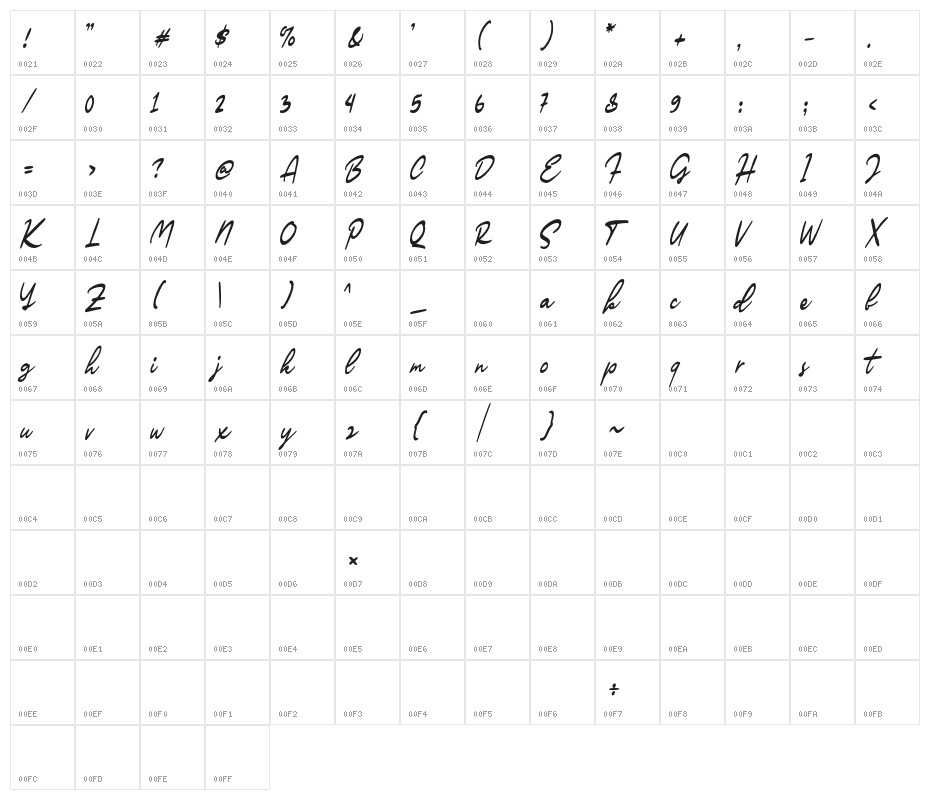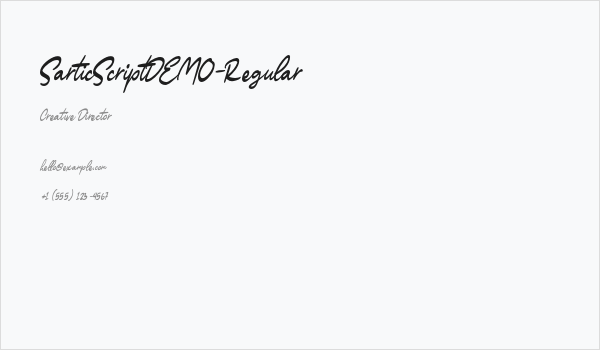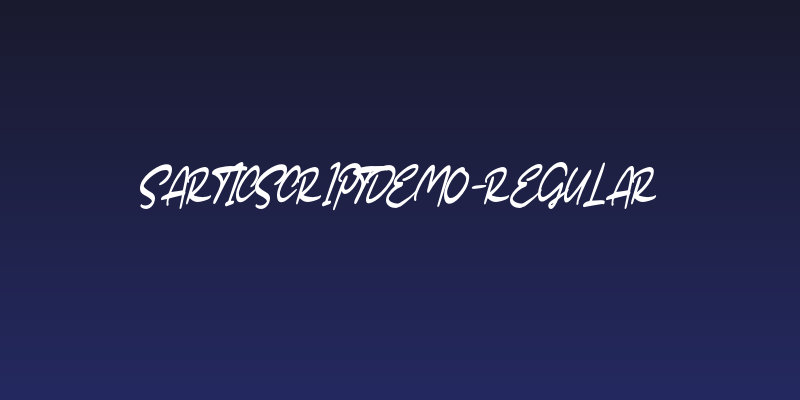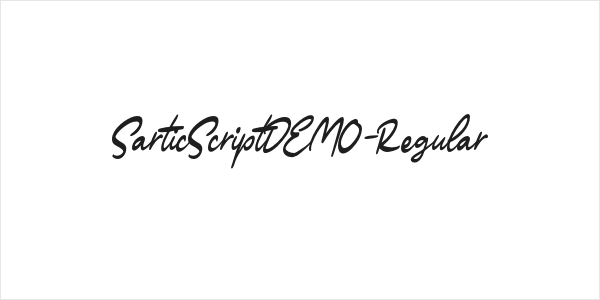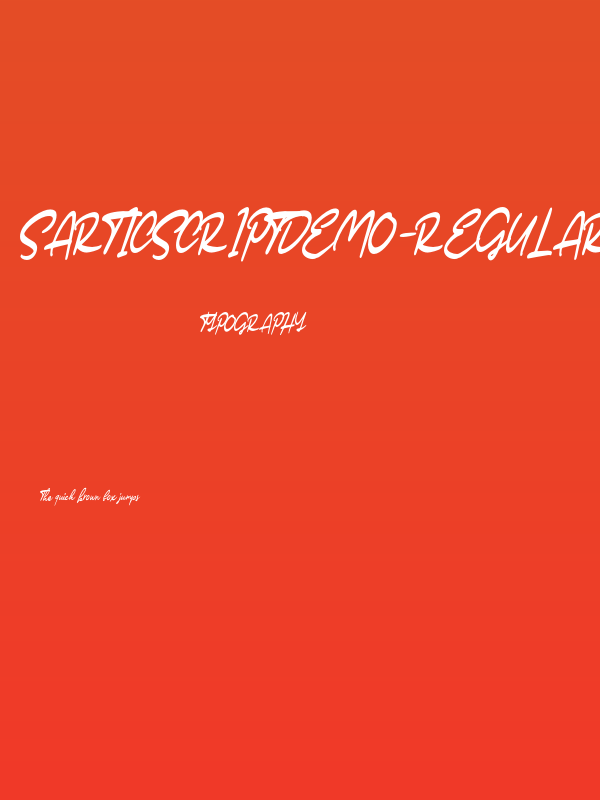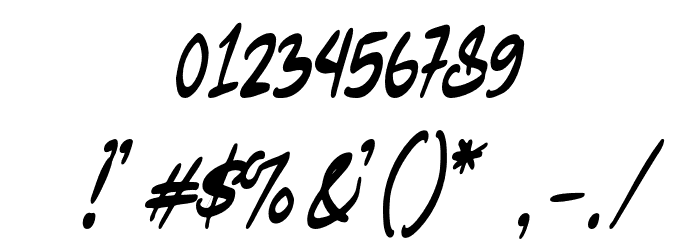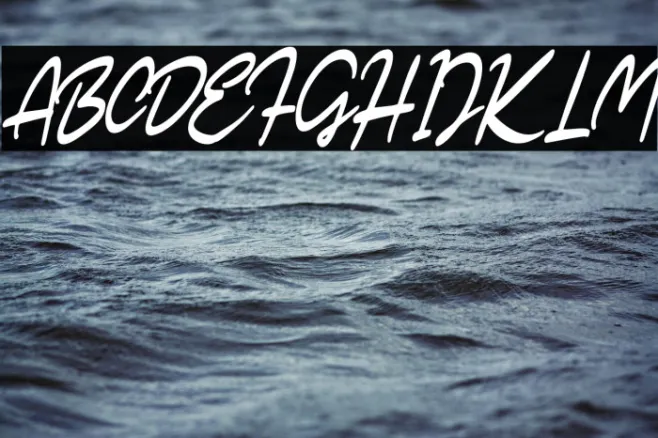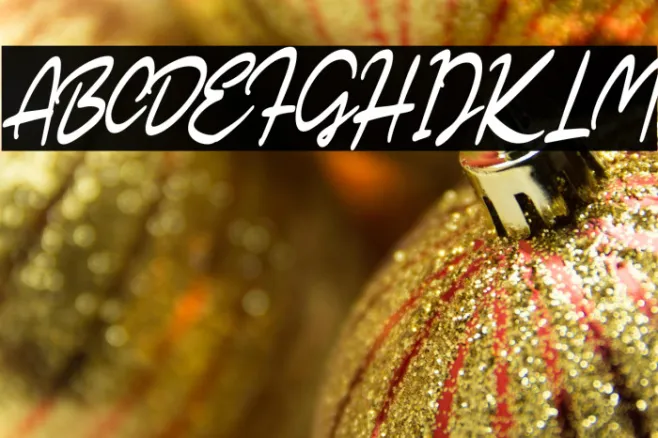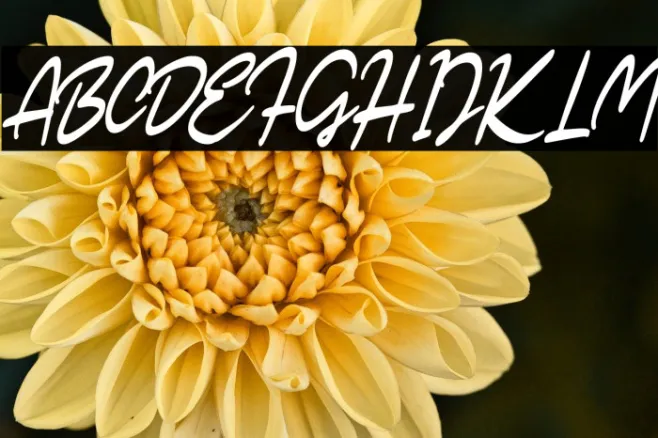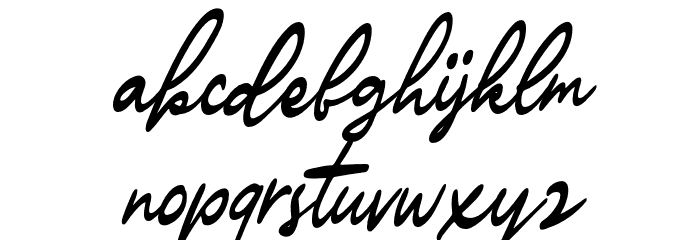
SarticScriptDEMO-Regular Font
SarticScriptDEMO-Regular Description
This font exudes a dynamic and energetic style, characterized by its fluid and cursive script. The letters are interconnected with smooth, flowing lines, giving it a handwritten appearance. The uppercase letters are bold and slightly slanted, while the lowercase letters maintain a consistent flow, enhancing readability. The numbers and special characters are crafted with the same attention to detail, ensuring uniformity across all glyphs. This font's expressive nature makes it ideal for creative and artistic projects, where a personal touch is desired.
| Proposed Projects | Ideal for wedding invitations, greeting cards, logos, and branding materials that require a personal and artistic touch. |